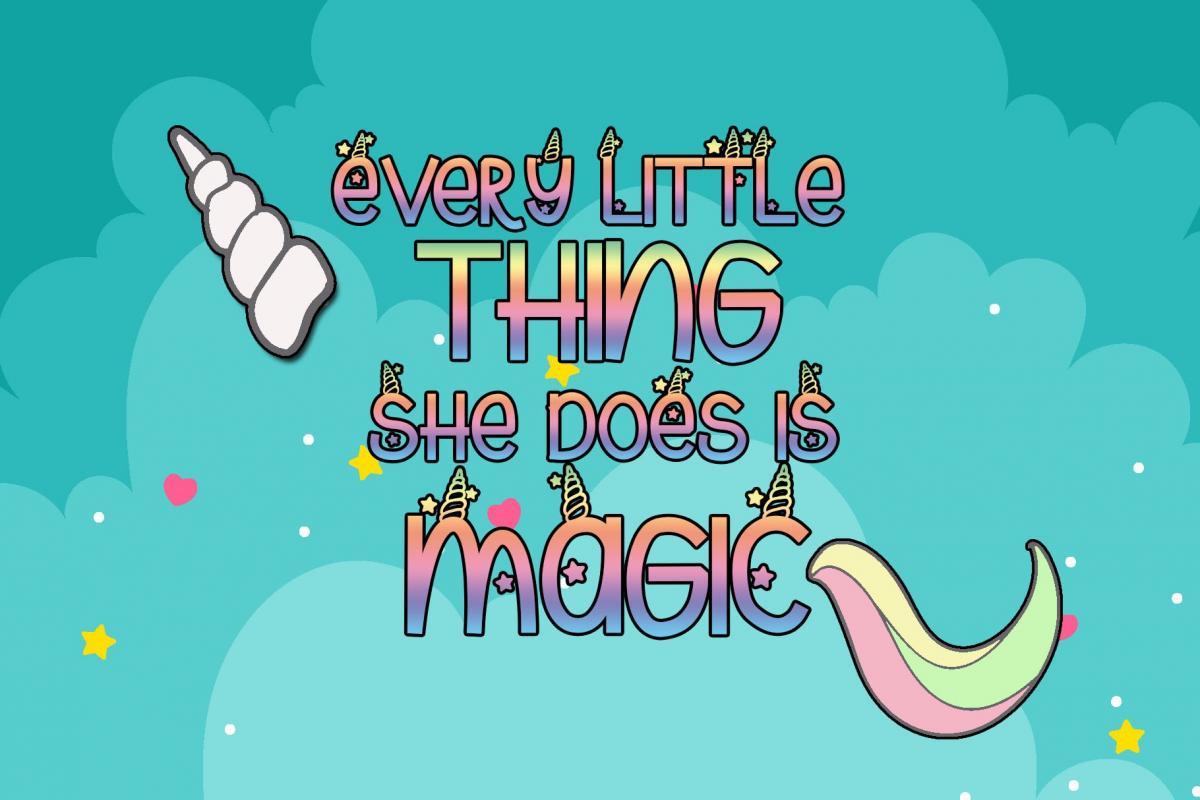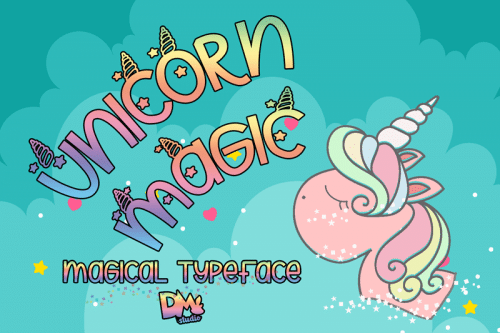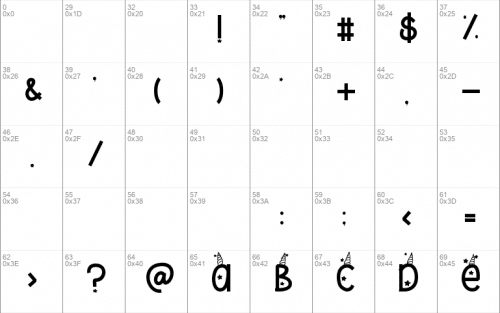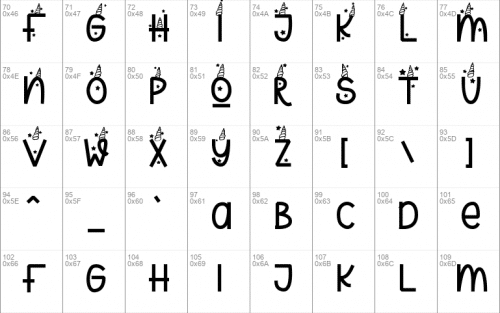
Give your designs a magical touch with ‘Unicorn Magic’. This unique typeface is perfect for adding a fun and playful touch to your designs. It’s easy to use and has a perfect readability.
It’s great for birthday cards, accessories, posters, or any other design which needs a cute and unique typeface.